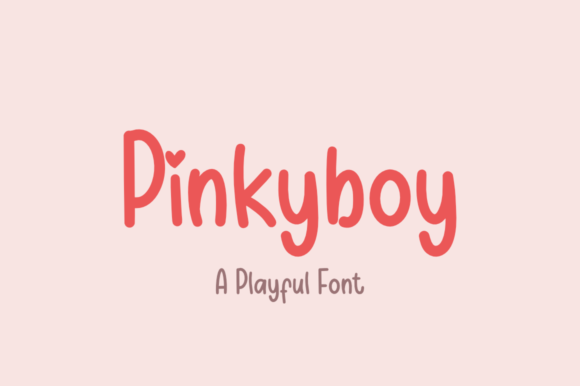
Pinkyboy Font looks like it jumped right out of a kids' storybook. Its charming handwritten style adds a touch of whimsy and playfulness to any project. The bouncy characters and playful curves create a sense of joy and excitement that will captivate your audience.
Perfect for children's books, posters, packaging, and social media, Pinkyboy Font is guaranteed to make your designs stand out. It's the perfect font for adding a touch of magic to any project.